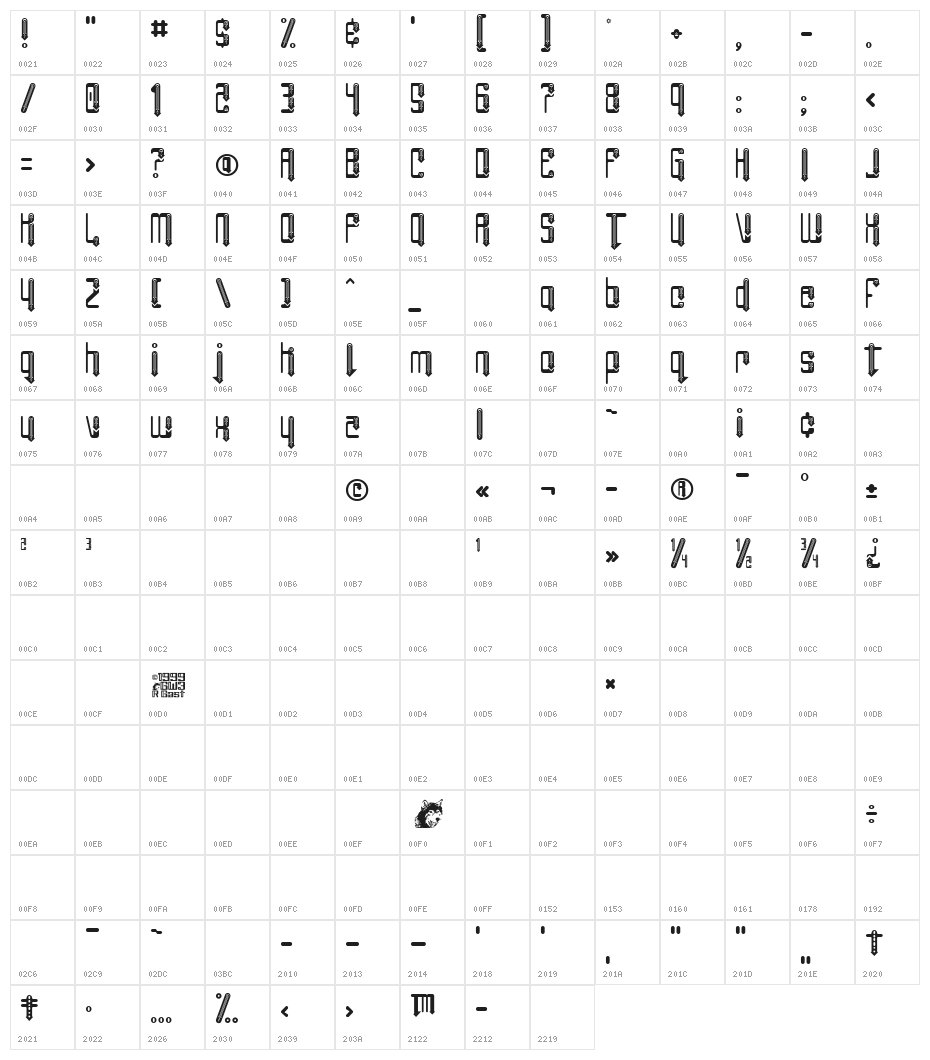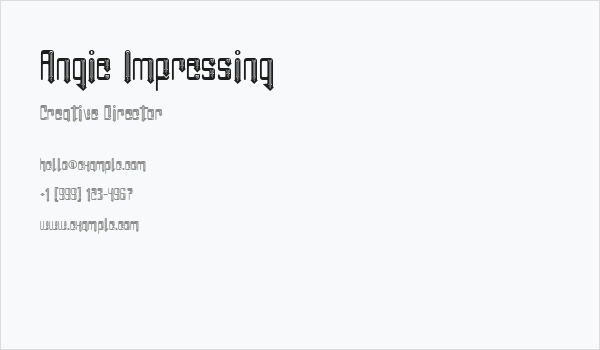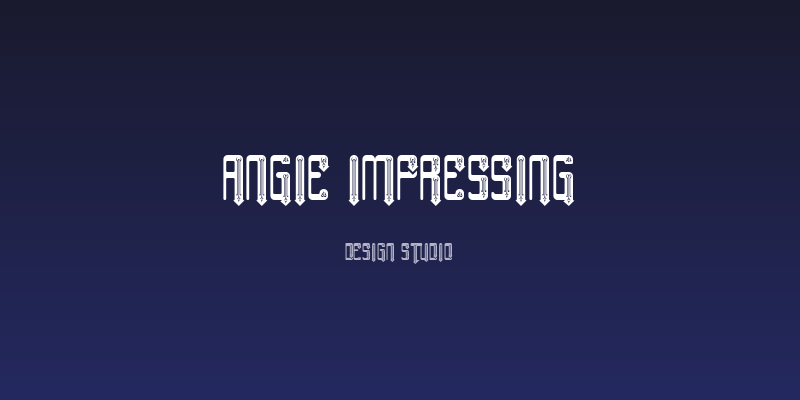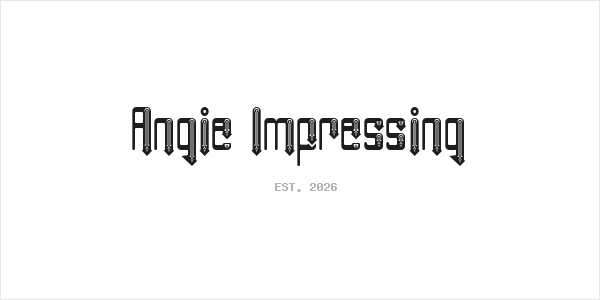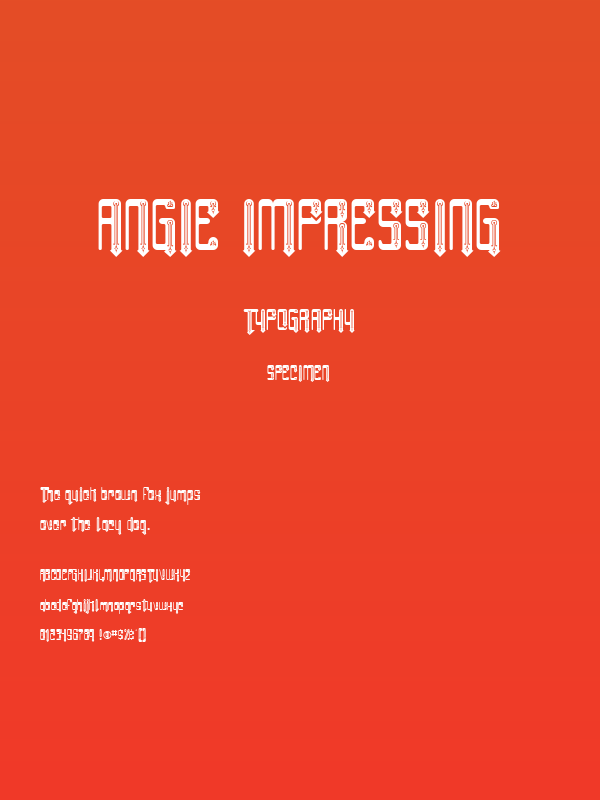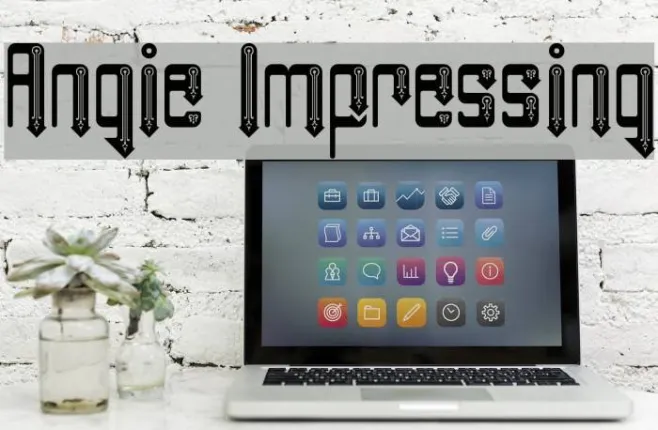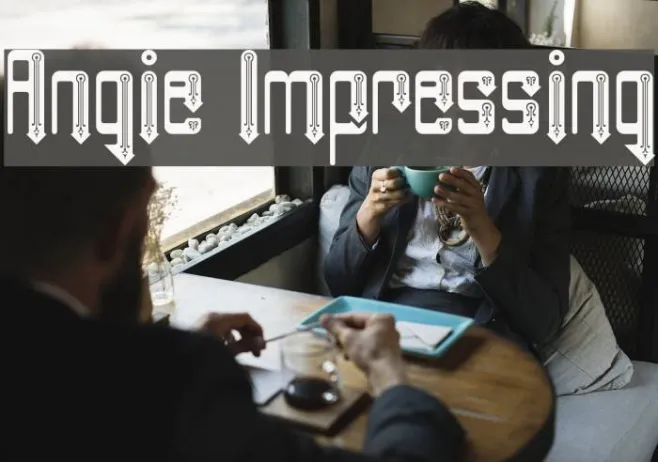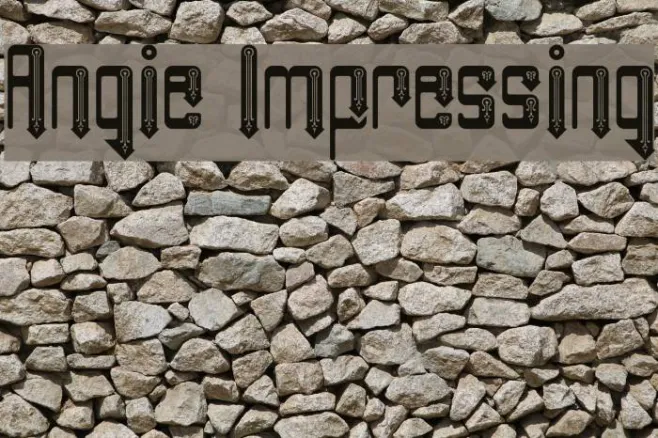
Angie Impressing Font
Angie Impressing Description
This font features a unique and decorative style with intricate details that resemble ornamental patterns. Each character is designed with a bold outline and internal embellishments, giving it a distinct and eye-catching appearance. The uppercase and lowercase letters maintain a consistent design theme, with elongated vertical lines and pointed ends that add a touch of elegance. The numbers and special characters are equally ornate, making this font suitable for creative and artistic projects. Its bold and decorative nature makes it stand out, ideal for use in designs that require a strong visual impact.
| Proposed Projects | Ideal for posters, invitations, branding, and any project requiring a decorative and artistic touch. |